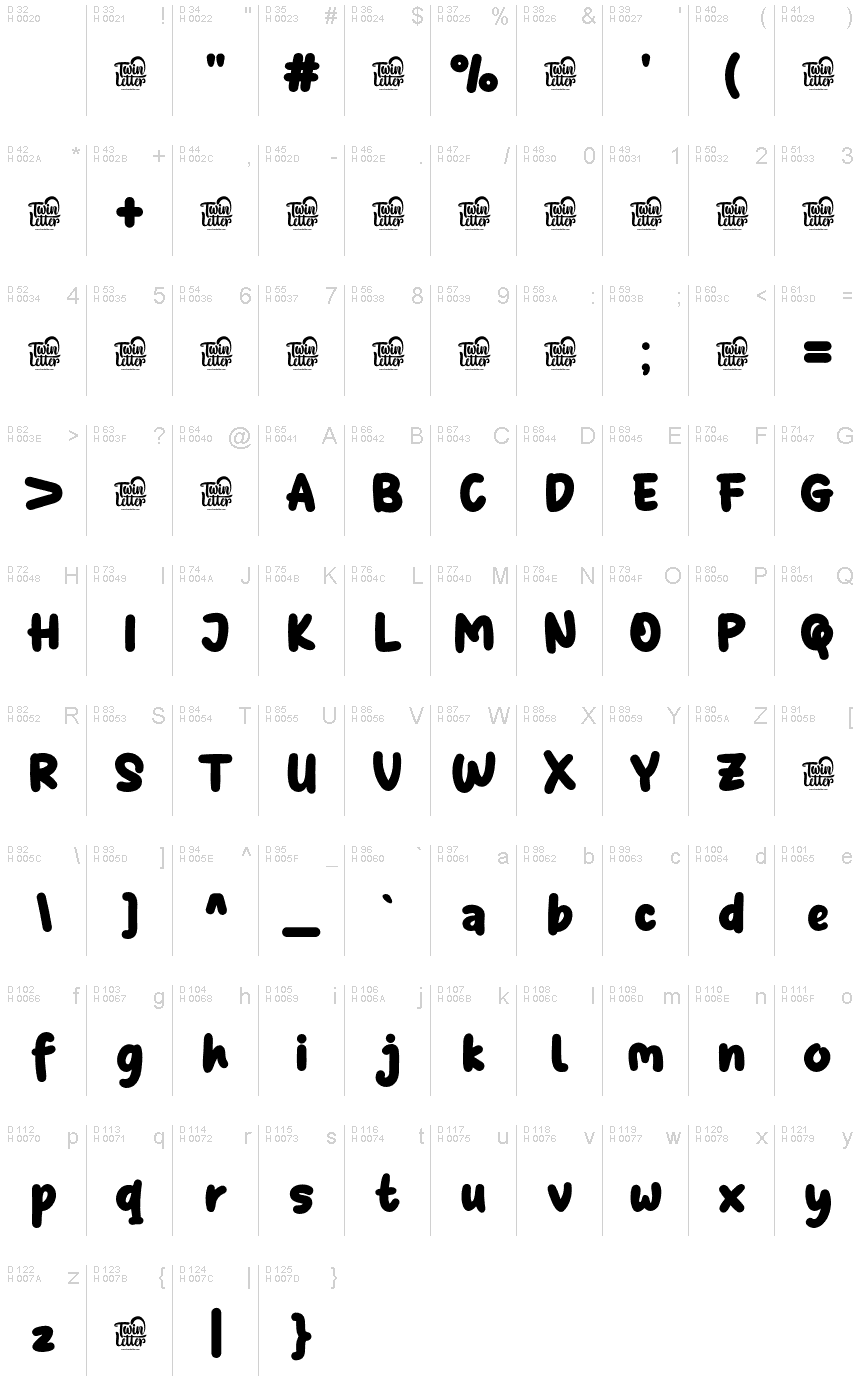
ShyestBold
Shyest Bold is the perfect display font for any project in need of a playful and whimsical touch. Created by twinletter, this cartoon-inspired typeface features a bold weight that demands attention while still maintaining its charm. Use Shyest Bold to add personality to children's book covers, event invitations, or even branding for a fun-loving business. Its unique style and boldness make it stand out on posters, packaging, and merchandise. Whether you're creating a logo or designing social media graphics, Shyest Bold is sure to bring an element of joy to any project.